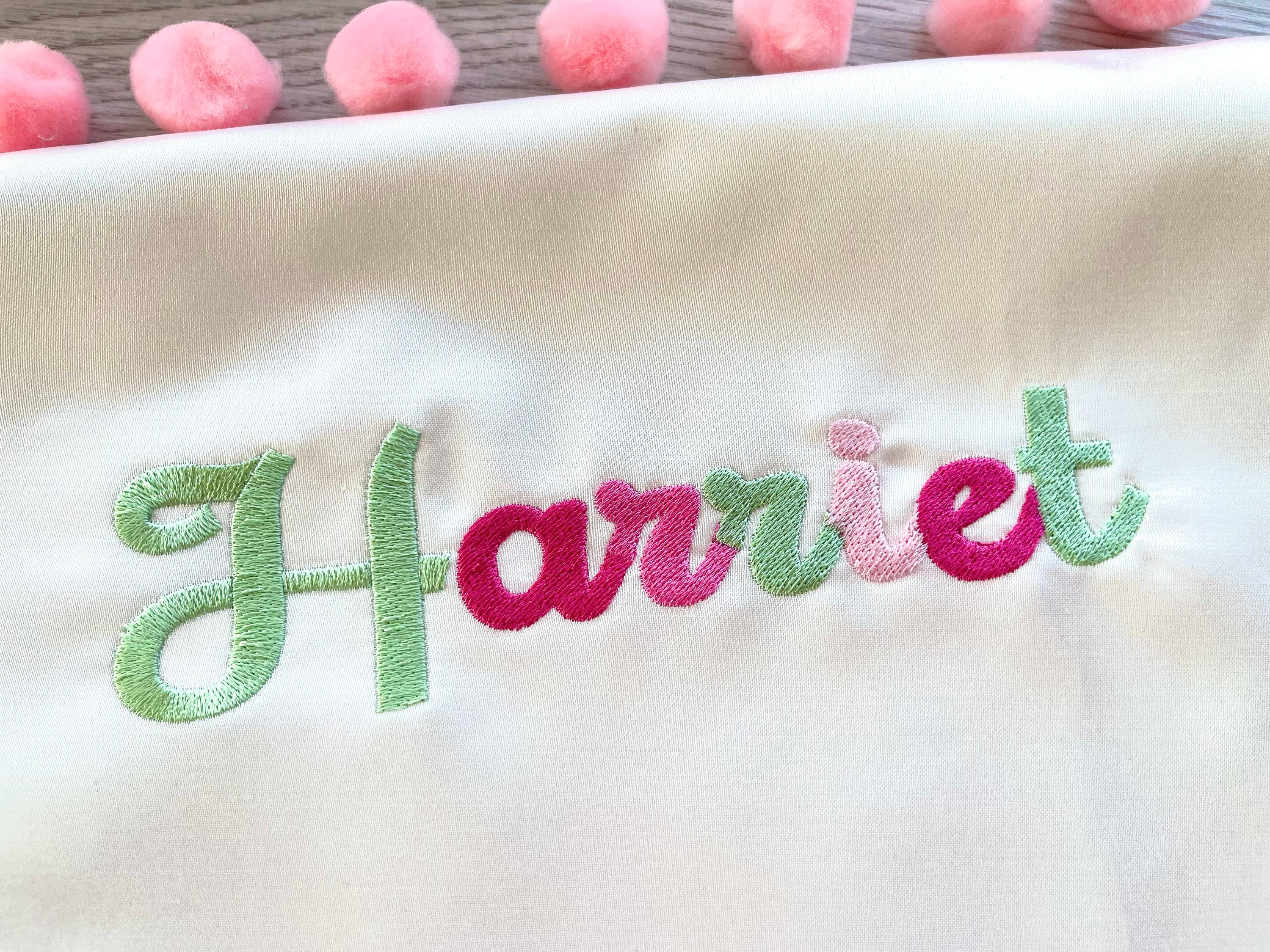
Fill stitch Harriet Font alphabet playful kids baby monogram name machine embroidery designs letters and numbers from 1.2" up to 2.5" and BX
Whole alphabet A-Z uppercase and lowercase letters, numbers and special marks & . , - ? !